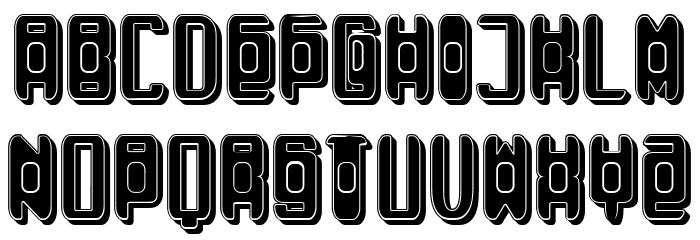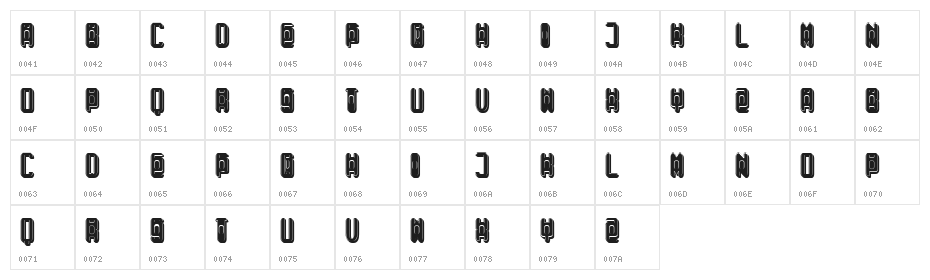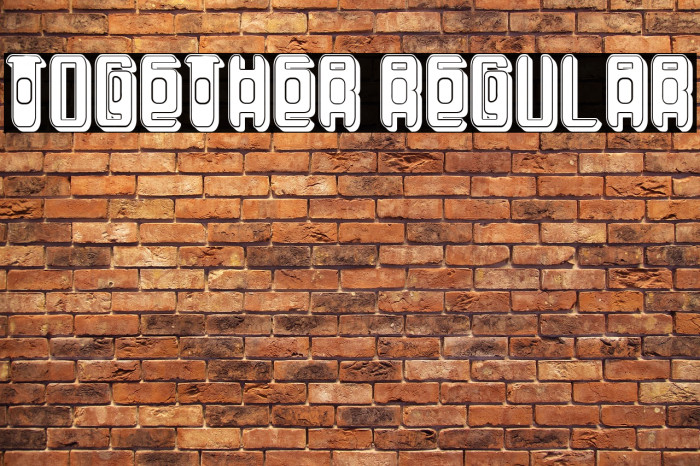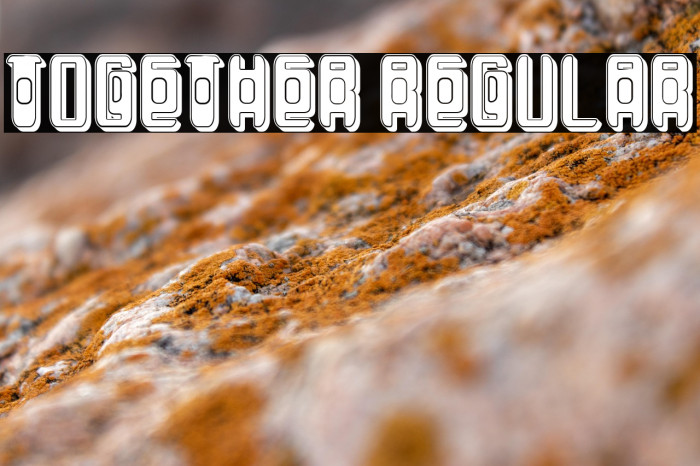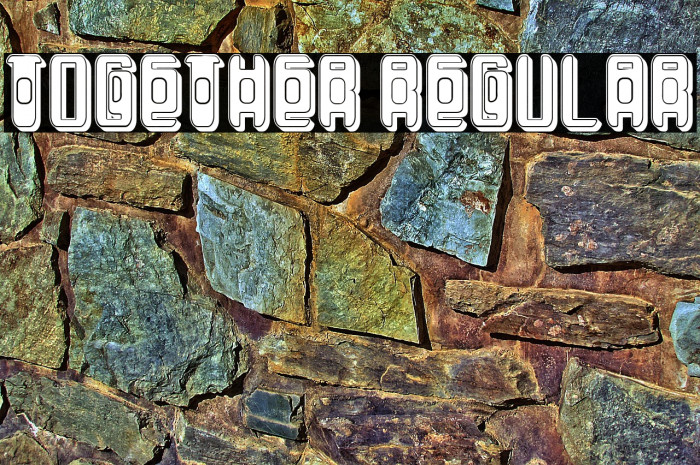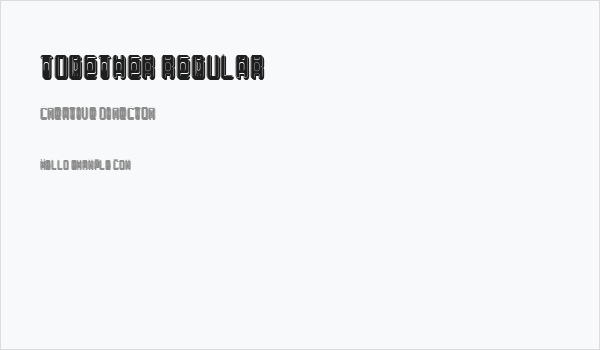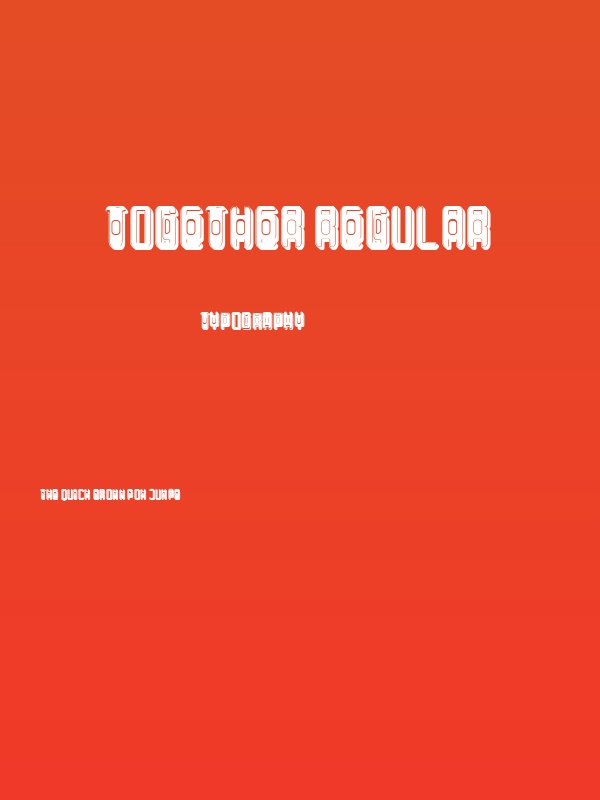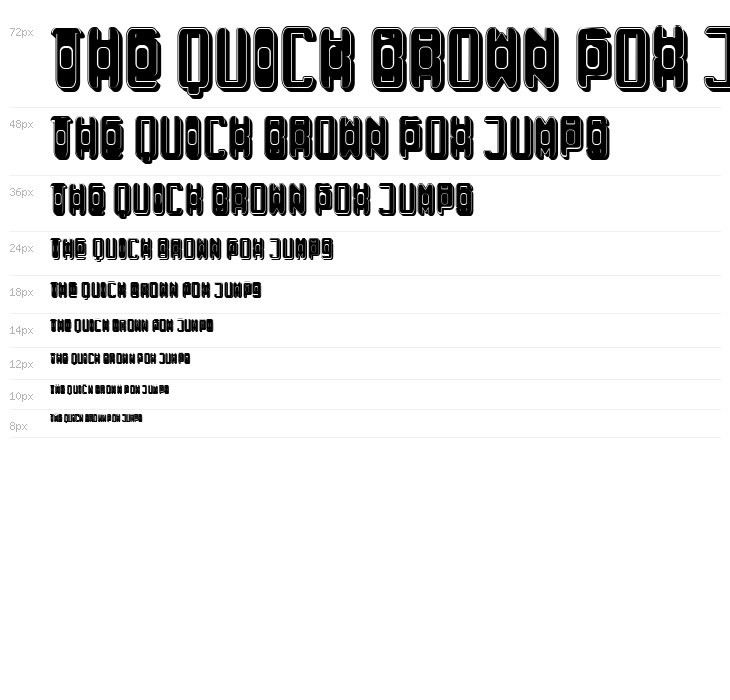
Together Regular Font
Together Regular Description
This font features a bold, geometric design with a strong emphasis on symmetry and structure. Each character is enclosed within a thick outline, creating a striking contrast between the inner and outer spaces. The letters are uniformly wide, giving the typeface a monospaced appearance, although it maintains a unique flair with its rounded corners and angular edges. The font's style is distinctly modern, with a futuristic aesthetic that is both eye-catching and versatile. Its boldness and clarity make it suitable for a variety of design applications, from digital interfaces to print media.
| Proposed Projects | Ideal for use in digital interfaces, branding, posters, and any project requiring a strong visual impact. |